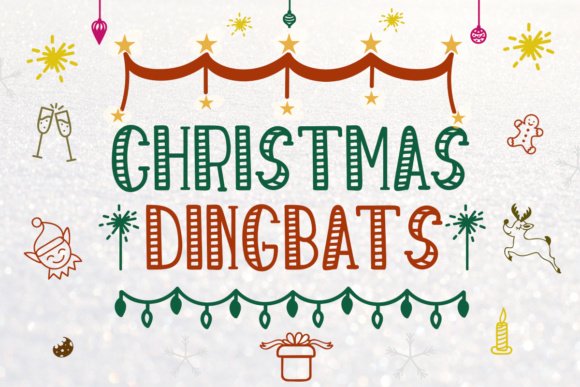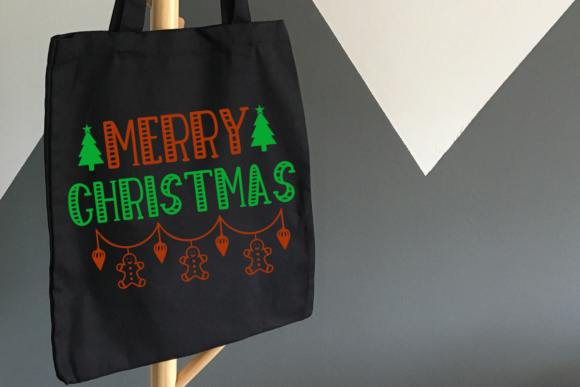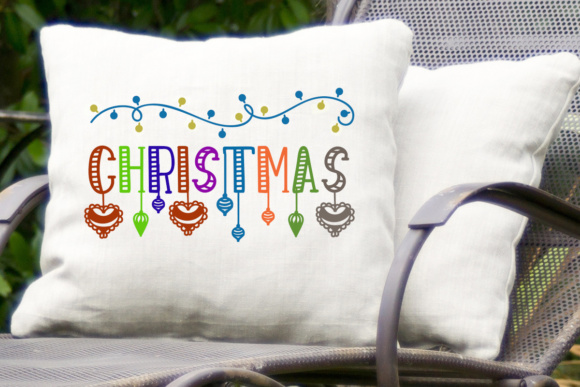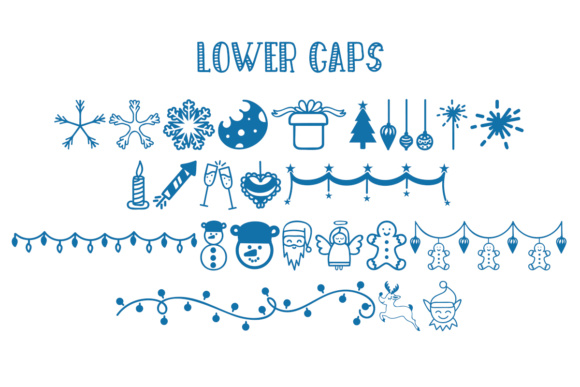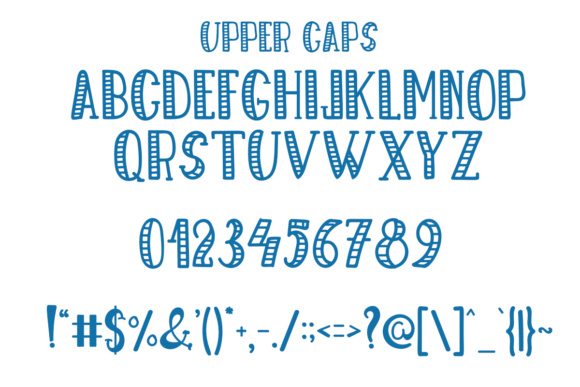
Deck the Halls with Christmas Cheer
It’s the most wonderful time of the year – the holiday season is finally here! As a creative, you’re likely already brainstorming ideas for your festive projects. Whether it’s designing a holiday card, creating a social media post, or making a gift tag, the right font can make all the difference.
That’s where the Christmas Dingbats Font comes in – a fun and playful custom font that’s packed with a wide variety of designs. This lovely freebie is perfect for adding a touch of holiday cheer to your creations and taking them to the next level. With its unique and festive designs, the Christmas Dingbats Font is a valuable addition to any designer’s toolkit.
Christmas Dingbats Font Key Features
- Character Set: The font includes a wide range of dingbats, ornaments, and symbols specifically designed for Christmas and holiday-themed designs, including snowflakes, bells, and holly leaves.
- Unique Characteristics: The Christmas Dingbats font features intricate, hand-drawn designs with a vintage feel, making it perfect for adding a touch of nostalgia to holiday projects.
- Font Style: The font is available in a single style, with a range of weights and styles available through the use of OpenType features, such as ligatures and swashes.
Christmas Dingbats Font Review
Overall, I’d say the Christmas Dingbats Font is a delightful addition to any holiday-themed project ✨. It’s playful, whimsical, and gets across the festive spirit with ease. The font’s design is cleverly crafted to evoke a sense of nostalgia and cheer, making it perfect for cards, invitations, and other seasonal materials.
- The font’s versatility shines in its ability to work well in both uppercase and lowercase letters ✨. It’s a great choice for creating eye-catching headings and titles.
- The Dingbats included in the font add an extra layer of visual interest and can be used to create fun and engaging illustrations ✨.
However, there are a few limitations to consider ⚠️:
- The font may be a bit too playful for more formal or traditional holiday projects ⚠️. It’s best suited for lighthearted and modern designs.
- The font’s size and style may not be as effective at smaller font sizes ⚠️. Be sure to test it out in different contexts to ensure it reads well.
Overall, I’d recommend the Christmas Dingbats Font for designers looking to add some festive flair to their holiday projects ✨. Just be mindful of its limitations and use it in contexts where its playful spirit will shine through.
Tips for Getting the Most Out of the Christmas Dingbats Font
Use the Christmas Dingbats font to add a festive touch to your designs, such as:
1. Creating holiday-themed graphics and invitations.
2. Designing Christmas cards and gift tags.
3. Adding a touch of whimsy to your website or social media graphics.
The Christmas Dingbats font is perfect for:
1. Holiday marketing materials.
2. Personalized gift tags and cards.
3. Social media graphics and posts.